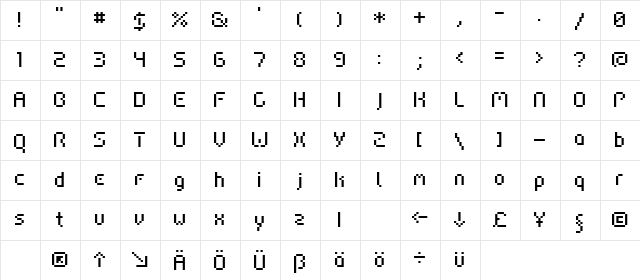
HIAIRPORTFFMCON Regular
Design Context for HIAIRPORTFFMCON Typeface
HIAIRPORTFFMCON offers clean, dependable letterforms without strong stylistic allegiance, making it a practical choice for designers who need flexibility.